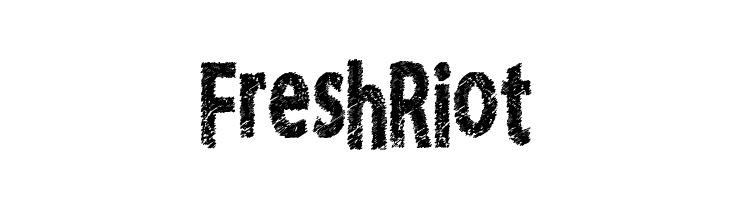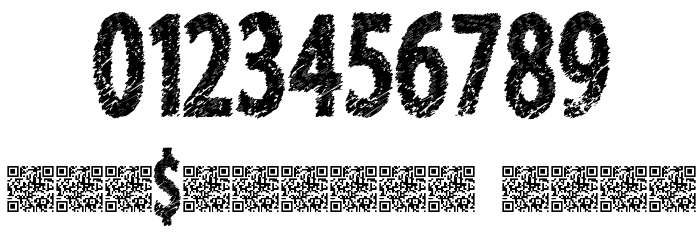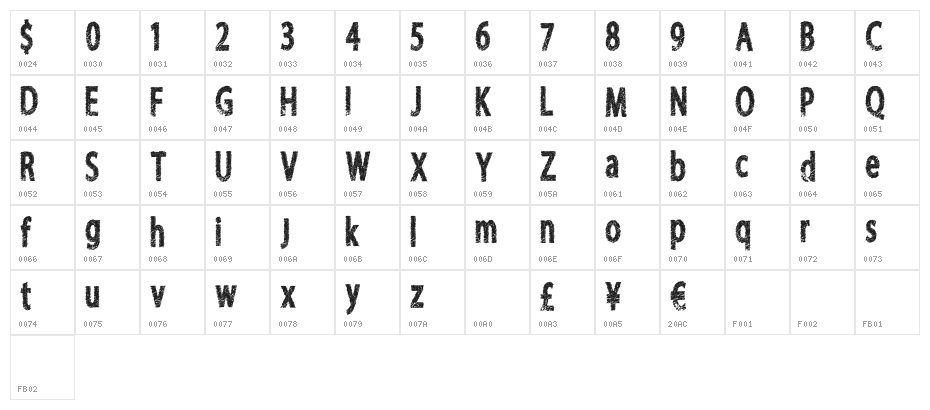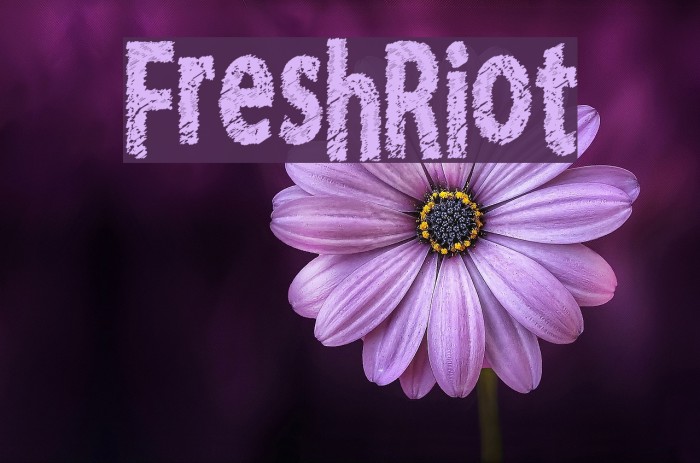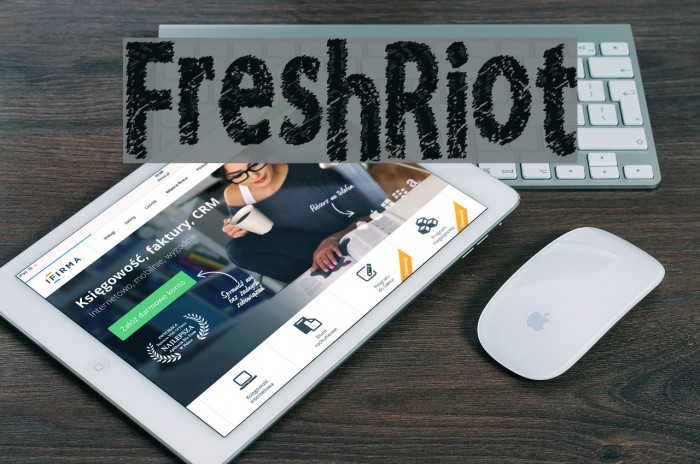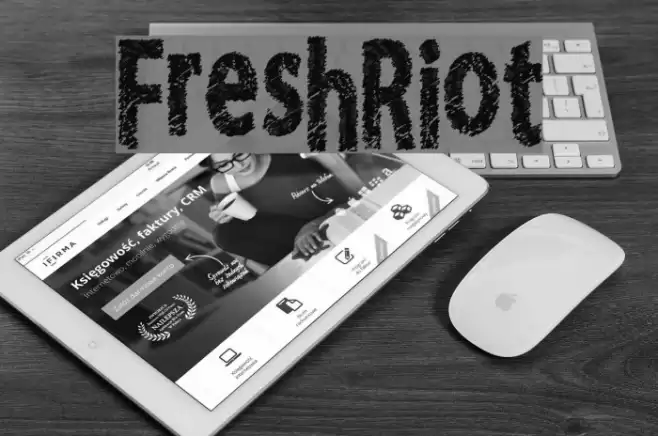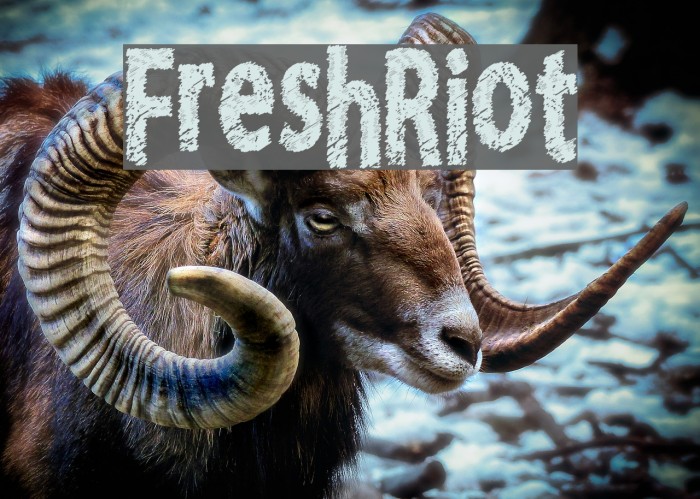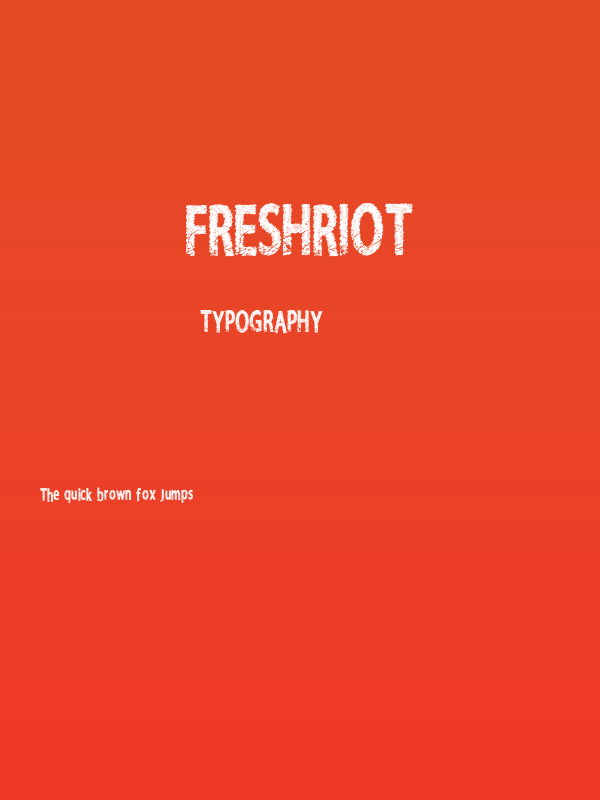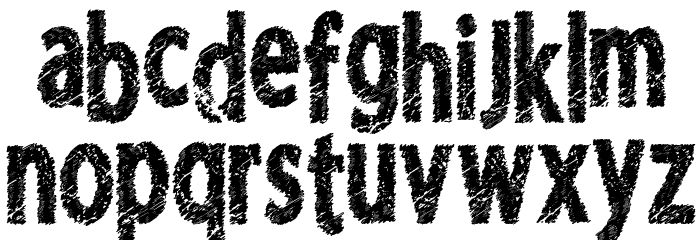
FreshRiot Font
FreshRiot Description
This font features a bold and textured appearance, reminiscent of a chalk or crayon drawing. The characters are heavily distressed, giving them a rough, hand-drawn look that adds a sense of dynamism and energy. The uppercase and lowercase letters maintain consistent proportions, while the numbers and special characters follow the same stylistic approach. This font's unique texture makes it stand out, providing a tactile and artistic feel that is both playful and edgy. The overall design is perfect for projects that require a touch of creativity and informality.
| Proposed Projects | Ideal for posters, album covers, artistic branding, and creative social media graphics. |